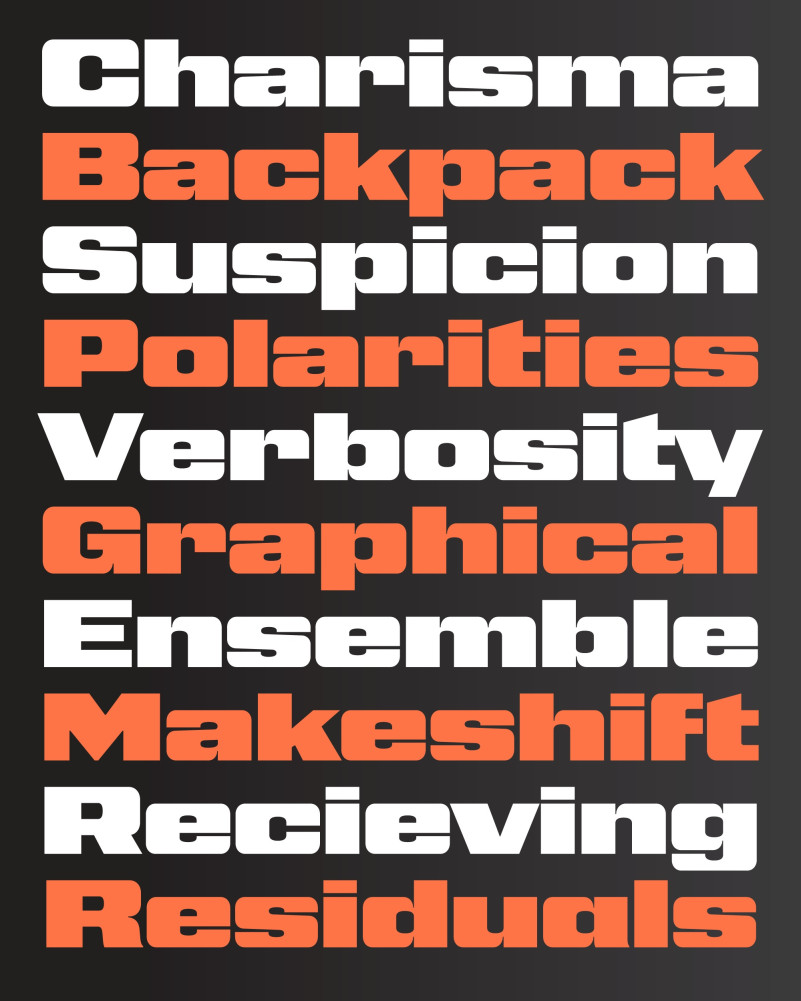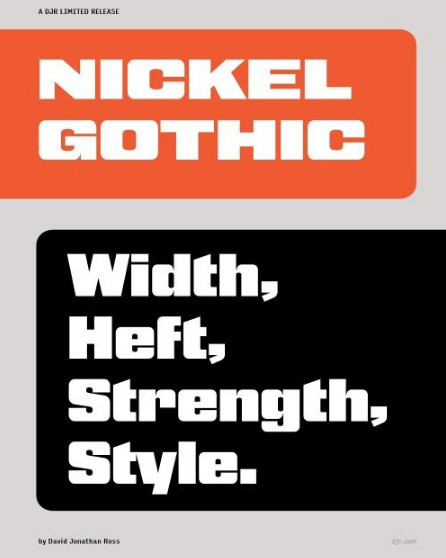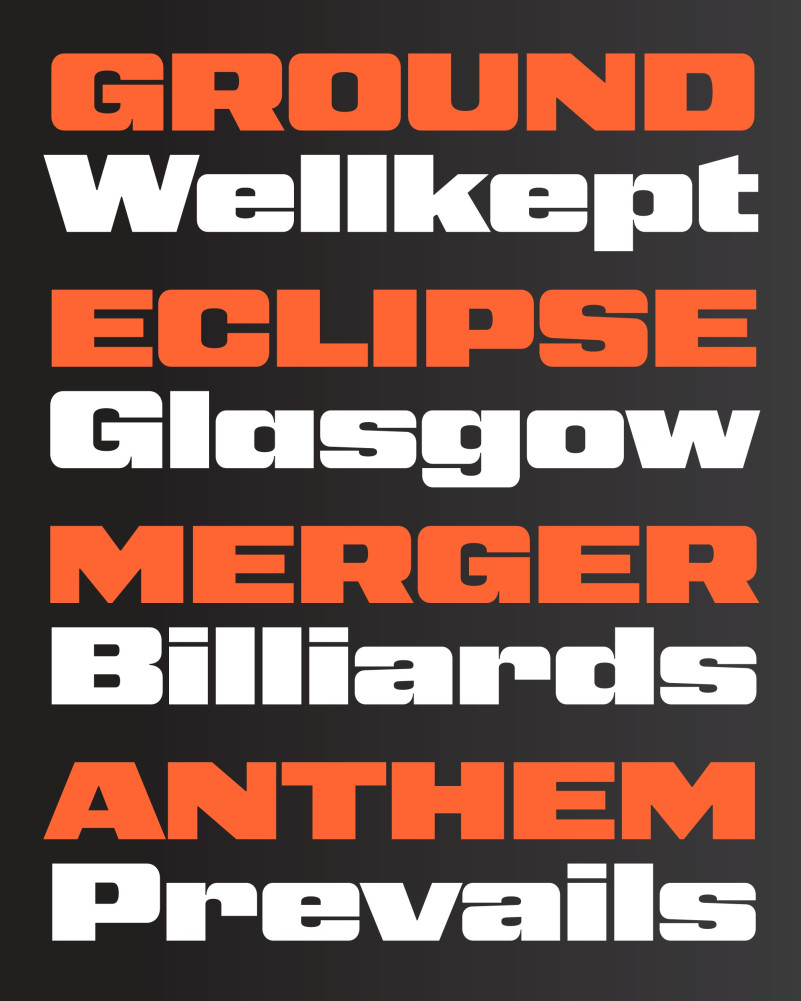
Nickel Gothic Font full, Deriving a sans serif typeface from a serif is rarely as straightforward as I want it to be. And that goes double for a typeface like Nickel, whose serifs are so large and distinctive that it’s hard to imagine what it would look like without them.
Nickel Gothic Font